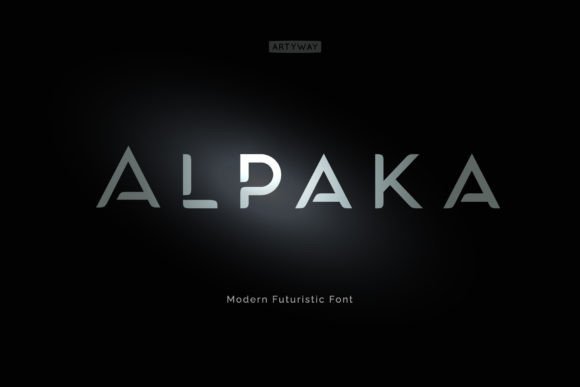
Unleash your creativity and embark on a typographic adventure with Alpaka Font, a captivating display font that will transform your designs into visual masterpieces. Designed by the talented Artyway, Alpaka is a minimalist and futuristic font that exudes elegance and sophistication. Its clean lines, sharp angles, and striking presence make it the perfect choice for creating logos, headlines, posters, and any project that demands attention.
With its wide range of weights and styles, Alpaka Font adapts seamlessly to your creative vision. Whether you're crafting a technical report, designing a sleek website, or creating eye-catching marketing materials, Alpaka Font will elevate your work to new heights. Its versatility extends to both digital and print media, ensuring that your designs shine on any platform.
Immerse yourself in the world of Alpaka Font and discover the endless possibilities it offers. Experience the thrill of creating designs that captivate audiences, convey messages with impact, and leave a lasting impression. Let Alpaka Font be your creative ally, guiding you towards typographic excellence.